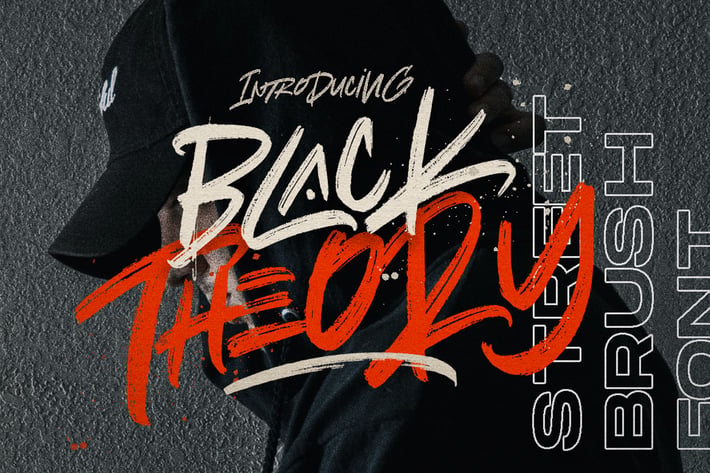
BLACK THEORY - Brush Logotype Urban Font
Black Theory Brush is Stylist Brush font with a real hand-painted wet brush look. Ideal for signature, logos, handwritten quotes, product packaging, header, poster, merchandise, social media & greeting cards.
Basic Latin A-Z and a-z
Symbols
Stylistic Set
* Multilanguage Support